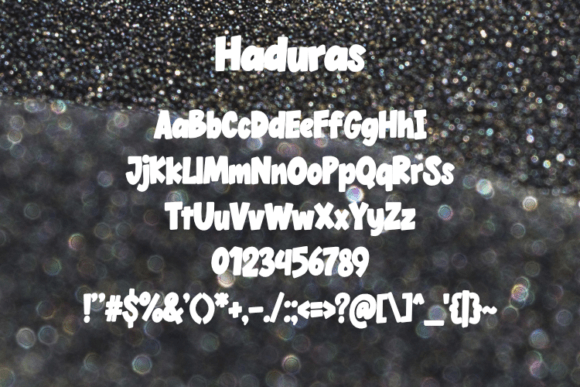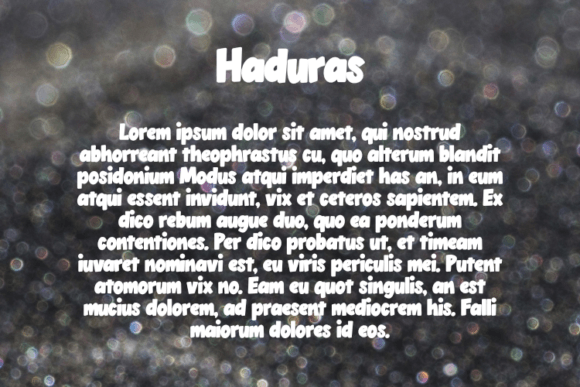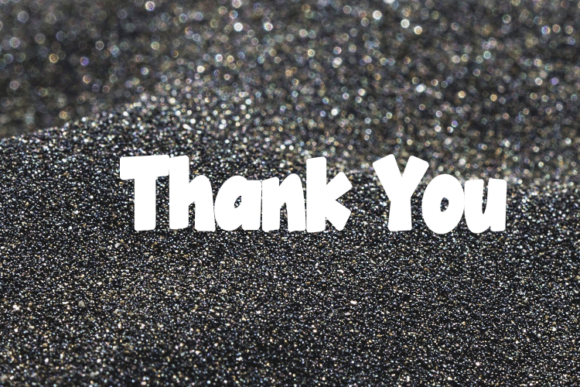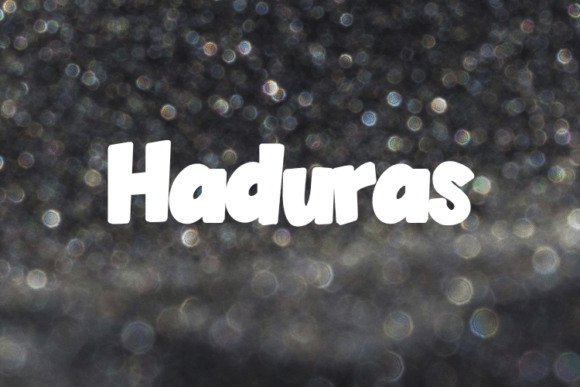
Introducing Haduras Font: Elevate Your Designs with Elegance and Versatility
In the world of design, fonts play a pivotal role in bringing creativity to life. For designers and crafters looking to make a statement with their fashion products, the choice of font can significantly impact the overall aesthetic. This is where Haduras Font comes into play, a meticulously crafted typeface designed to imprint your unique style on various products, from chic clothing to trendy t-shirts.
The Allure of Haduras Font
Haduras Font is not just any ordinary font; it’s a versatile tool that combines elegance with functionality. Its captivating allure lies in its distinct elegance, making it an ideal choice for designers aiming to stand out in a crowded market. Whether you’re working on fashion products or digital projects, Haduras brings a level of sophistication that can elevate your designs to new heights.
Marrying Style and Convenience
Haduras Font strikes the perfect balance between style and software convenience. On one hand, it offers a stylish and elegant appearance that can make any design stand out. On the other hand, its technical features, such as universal compatibility and the provision of an OTF file, ensure that it is as practical as it is beautiful. This comprehensive package is what makes Haduras an invaluable asset for designers and crafters.
Elevate Your Design Portfolio
For designers looking to make their mark in the industry, having a standout portfolio is crucial. By incorporating Haduras Font into your projects, you can add a touch of elegance and sophistication that sets your work apart. Whether you’re showcasing your designs on a personal website, social media, or at a physical exhibition, the distinct style of Haduras can help leave a lasting impression on potential clients and collaborators.
Practical Applications of Haduras Font
Haduras Font is incredibly versatile, making it suitable for a wide range of applications. Here are a few ways you can use Haduras to elevate your designs:
- Fashion Products: From chic clothing lines to trendy t-shirts, Haduras can add a touch of elegance to your fashion designs.
- Digital Projects: Use Haduras in your digital projects, such as website designs, social media graphics, and presentations, to give them a professional and stylish look.
- Branding and Marketing Materials: Incorporate Haduras into your branding and marketing materials, such as logos, brochures, and business cards, to create a cohesive and sophisticated brand image.
Haduras Font is more than just a typeface; it’s a design companion that can help you bring your creative visions to life. With its captivating allure, universal compatibility, and practical features like the OTF file, Haduras offers a comprehensive package for designers and crafters. By choosing Haduras, you’re not just selecting a font; you’re elevating your designs, simplifying your workflow, and taking your portfolio to the next level. Immerse your designs in the elegance of Haduras and discover the difference it can make.